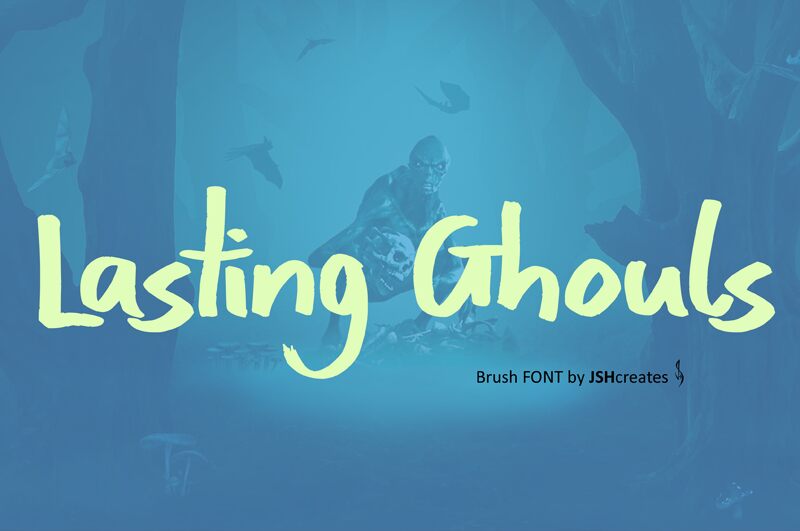
Lasting Ghouls font by JSH creates is a bold, handwritten display taken as a relic from another realm. The imperfections of each letter make them look handmade, giving the font its lively appearance as it dances along the baseline, messing up with the balance. But because it’s a Lasting Ghouls design, it is one that is sure to hold the attention of the readers.
A font that boasts of such character and versatility is what every designer would wish for, and now you can use this masterpiece in advertisements and banners for Halloween, in eye-catching logotypes for horror-comedy movies and books inspired by classics. It can be combined with regular body text for more extensive projects.